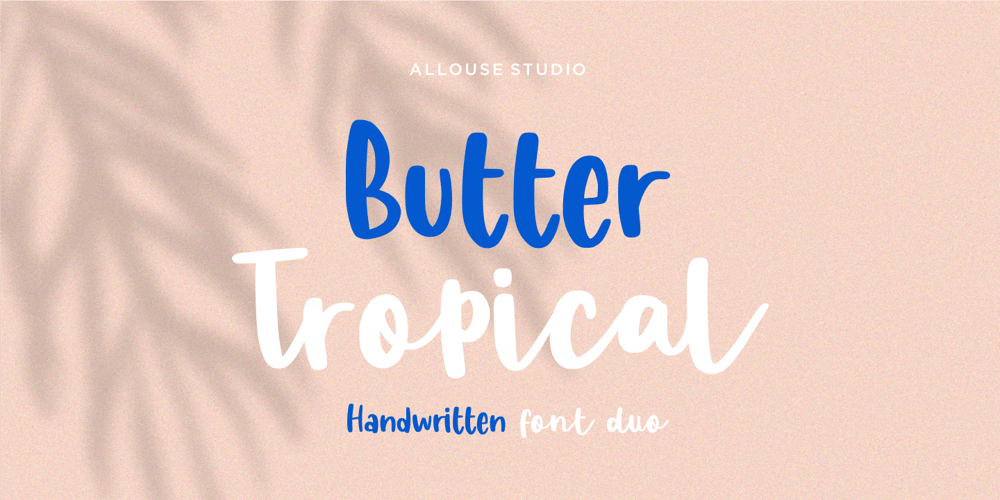
Butter Tropical Font Family was designed by Fachrizal Yusuf and published by Allouse Studio. Butter Tropical contains 2 styles and family package options. Proudly Presenting, Butter Tropical a Handwritten Font Duo Original and Script.Both Fonts come with Multi-Lingual Support to fulfill your need.We highly recommend using a program that supports OpenType features and Glyphs panels like many of Adobe apps and Corel Draw, so you can see and access all Glyph variations.Butter Tropical is perfect for any tittle, logo, product packaging, branding project, megazine, social media, wedding, or just used to express words above the background.Enjoy the font, feel free to comment or feedback, send me PM or email. Thank You!